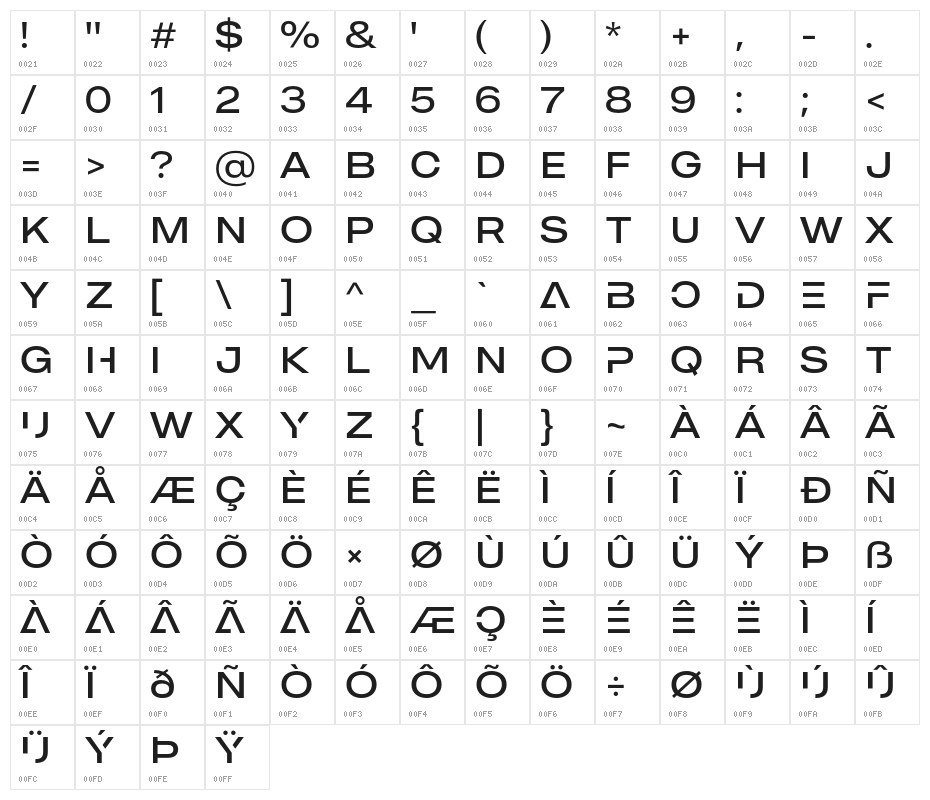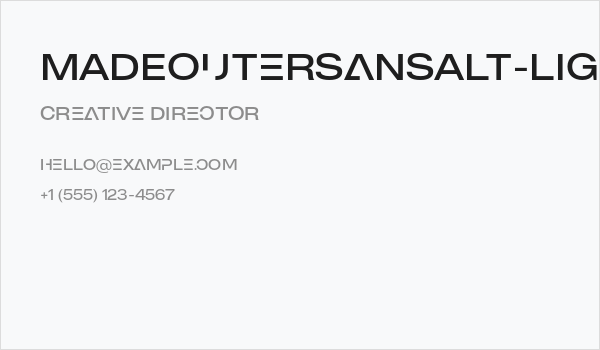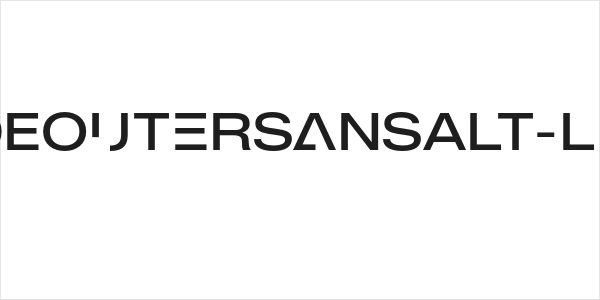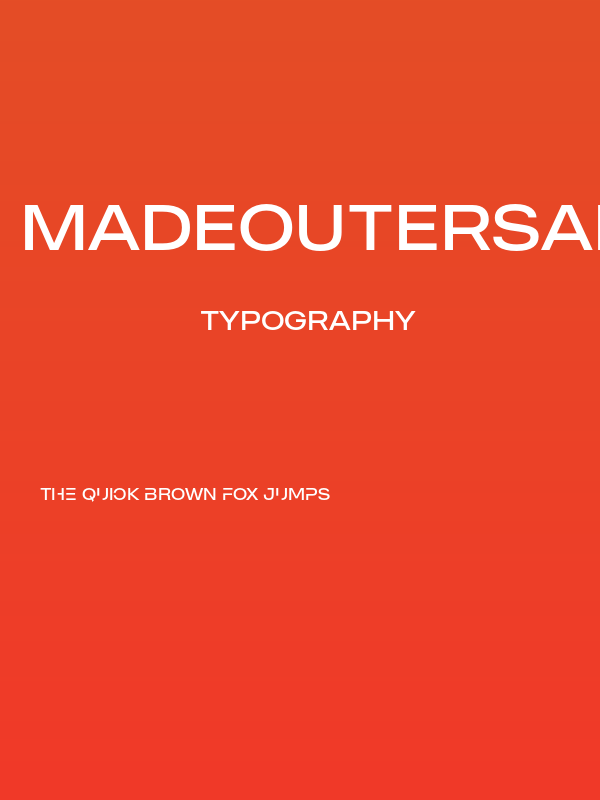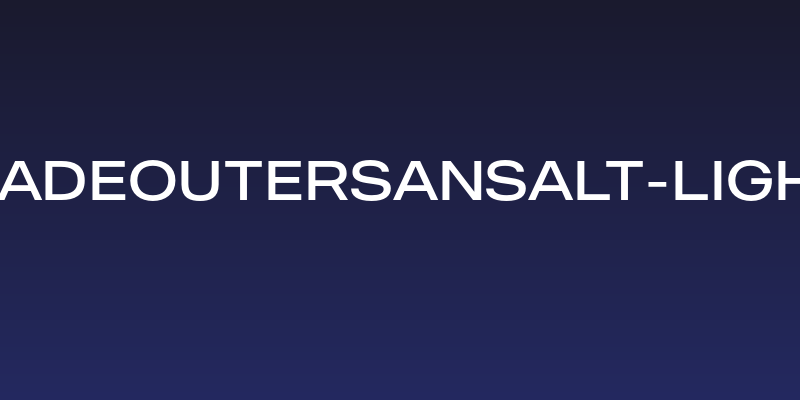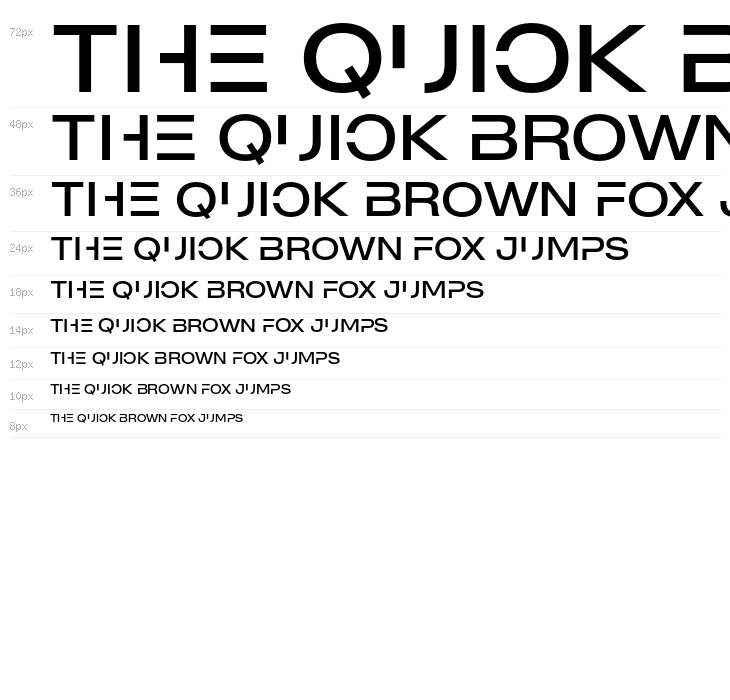
MADEOuterSansAlt-Light Font
MADEOuterSansAlt-Light Description
This font exhibits a clean and modern sans-serif style with a geometric structure. The characters are uniform and well-proportioned, featuring a consistent stroke width that conveys a sense of stability and precision. The uppercase letters are bold and assertive, while the lowercase letters maintain a harmonious balance with slightly rounded edges. The numerals are clear and easily distinguishable, making them suitable for various applications. Special characters are included, enhancing the font's versatility. Overall, this typeface is designed for clarity and readability, making it ideal for both digital and print media.